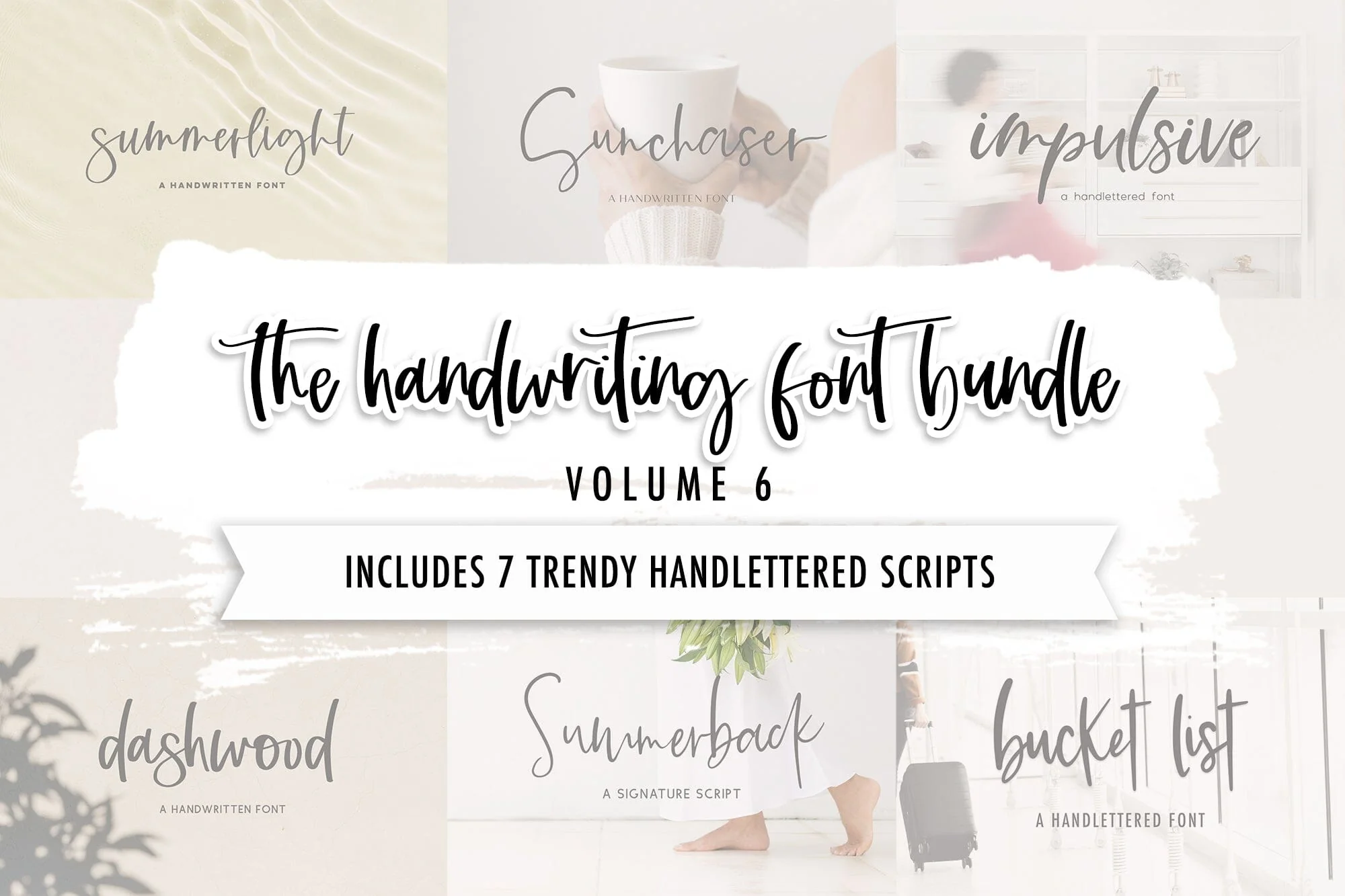
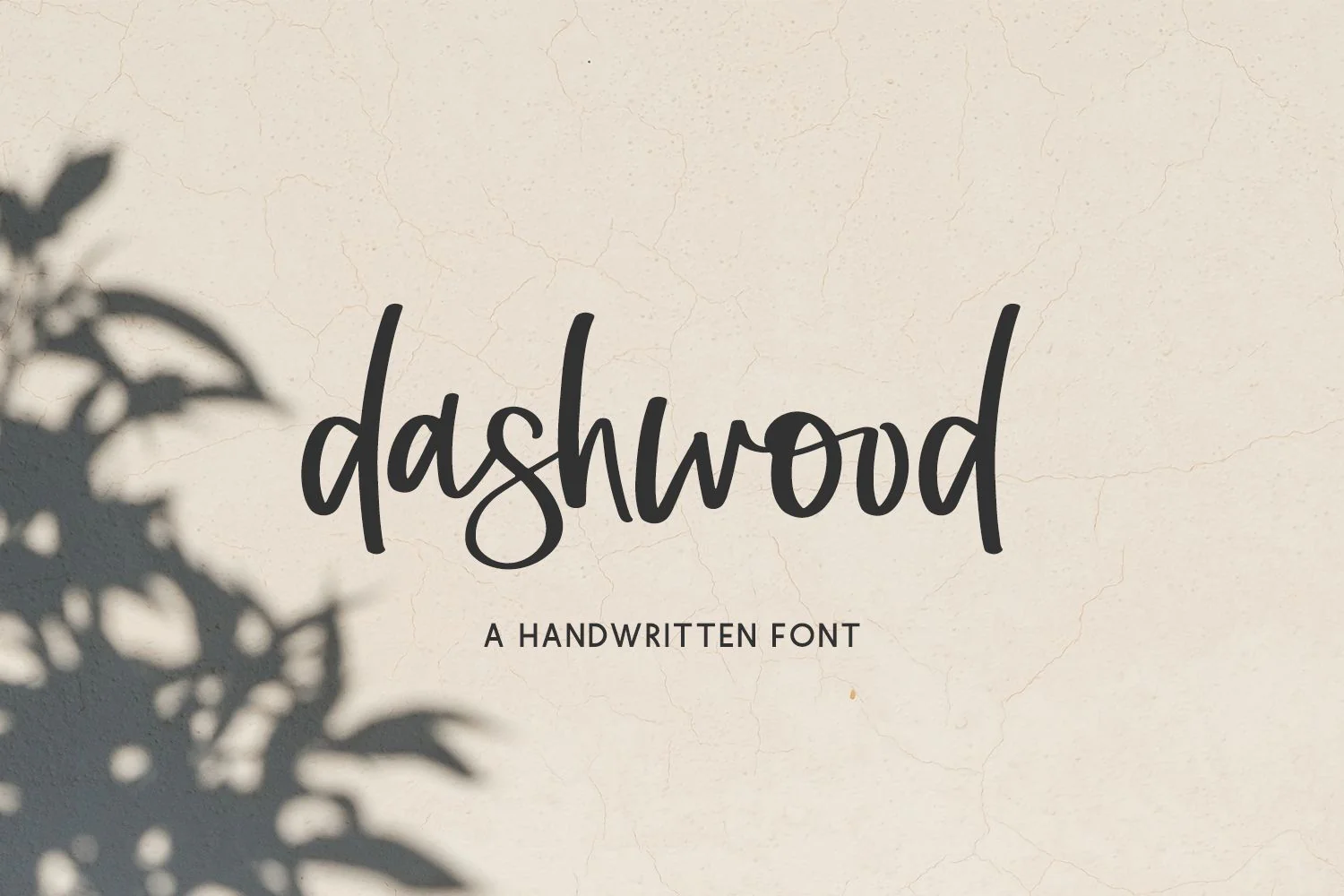
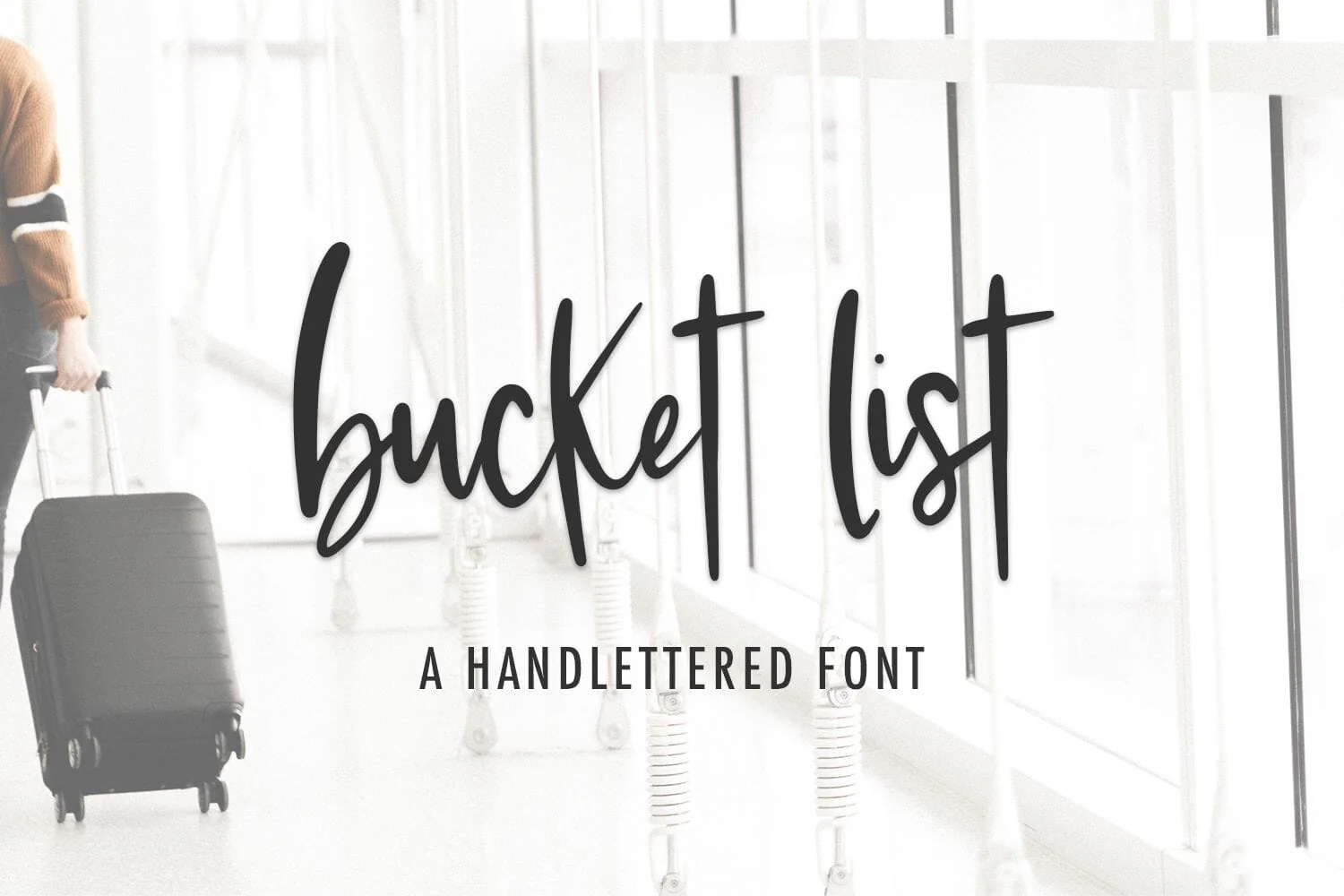
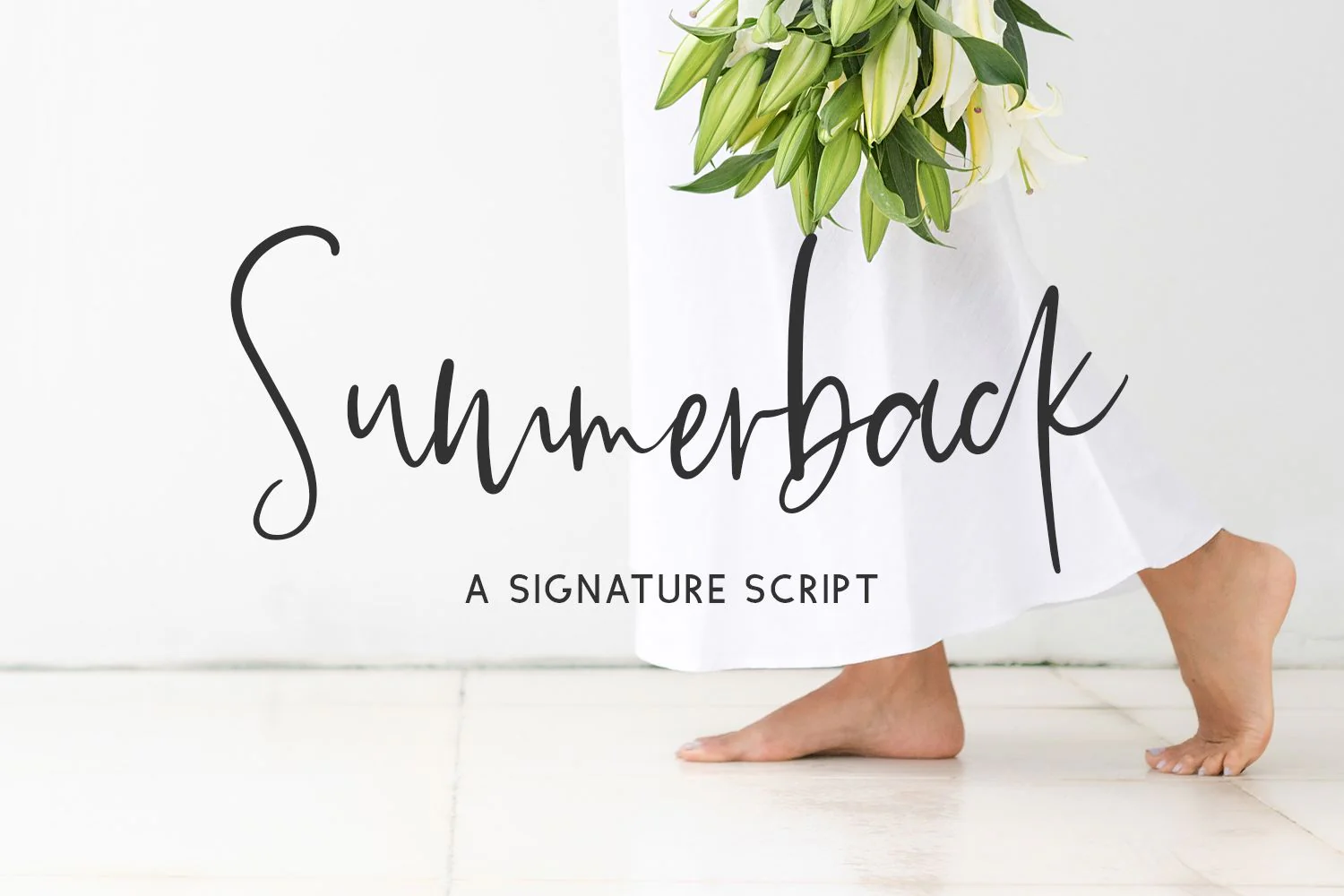
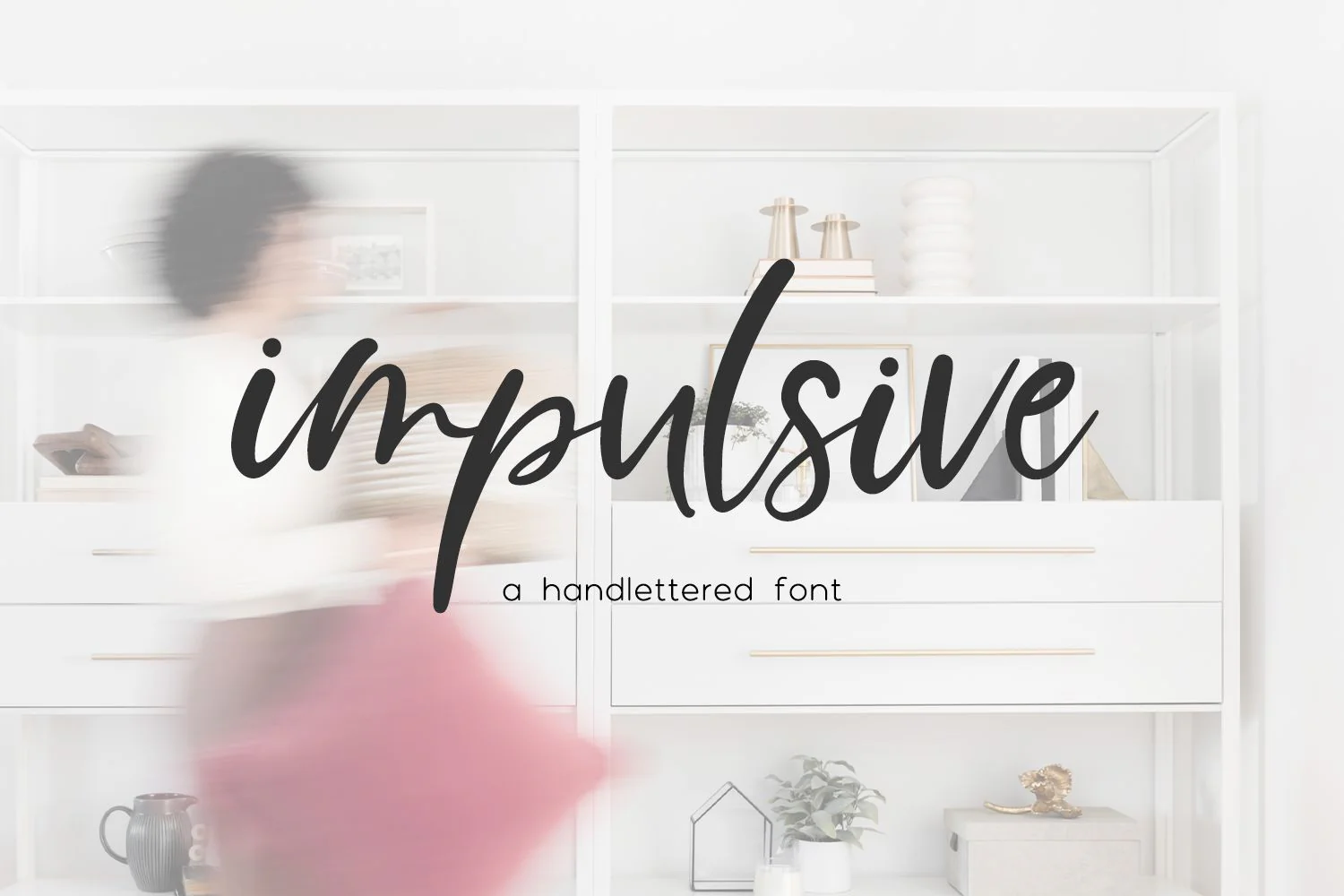
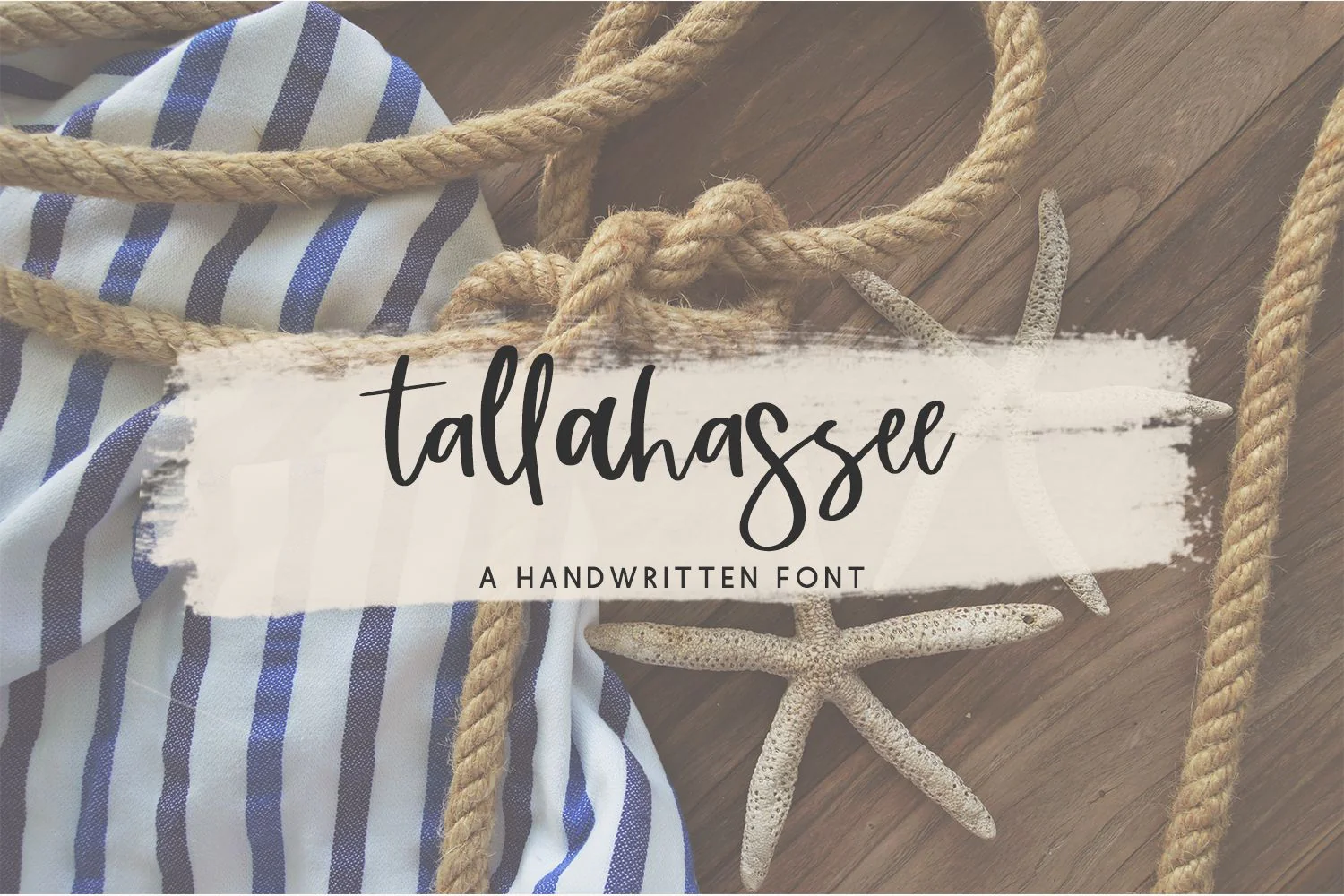
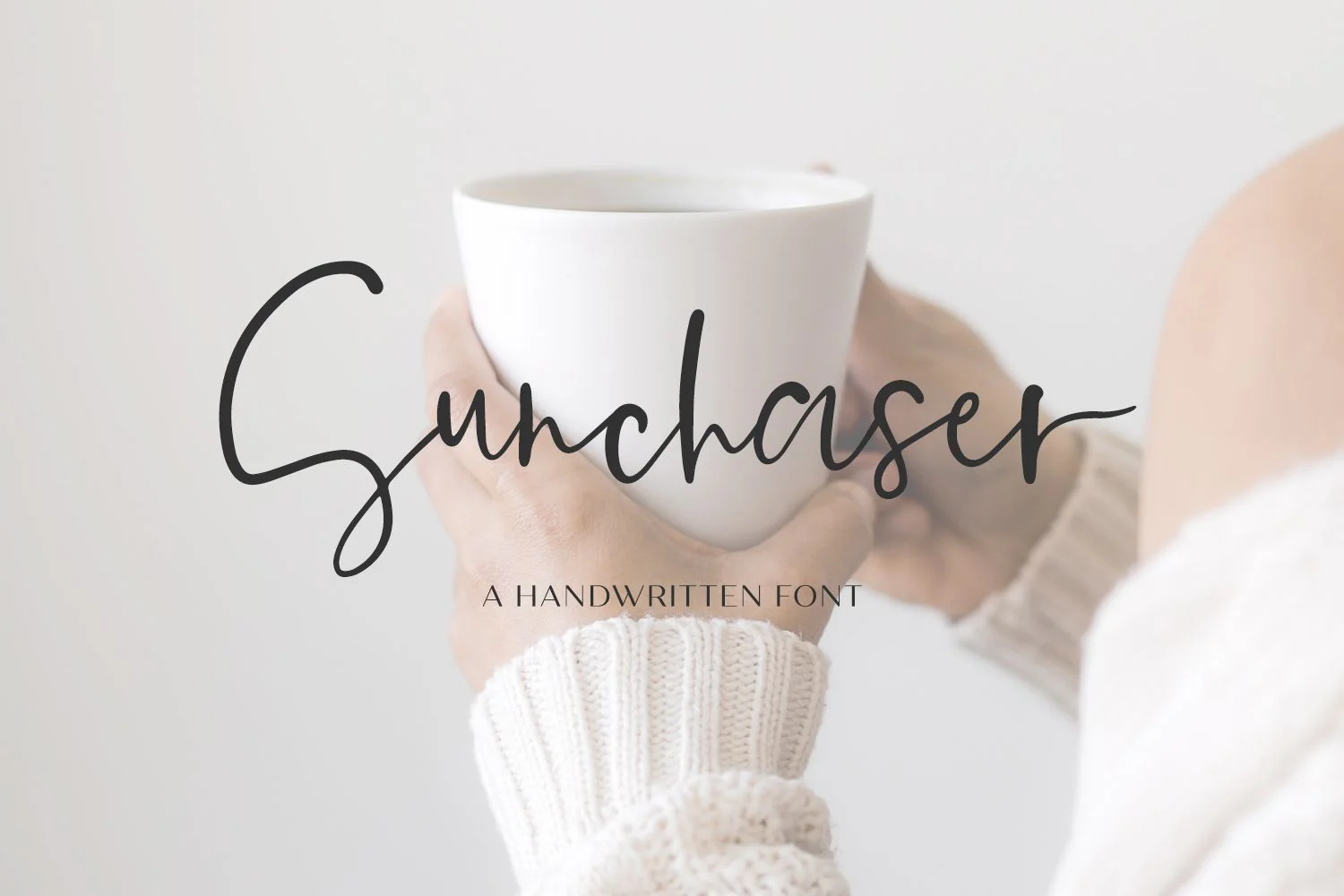
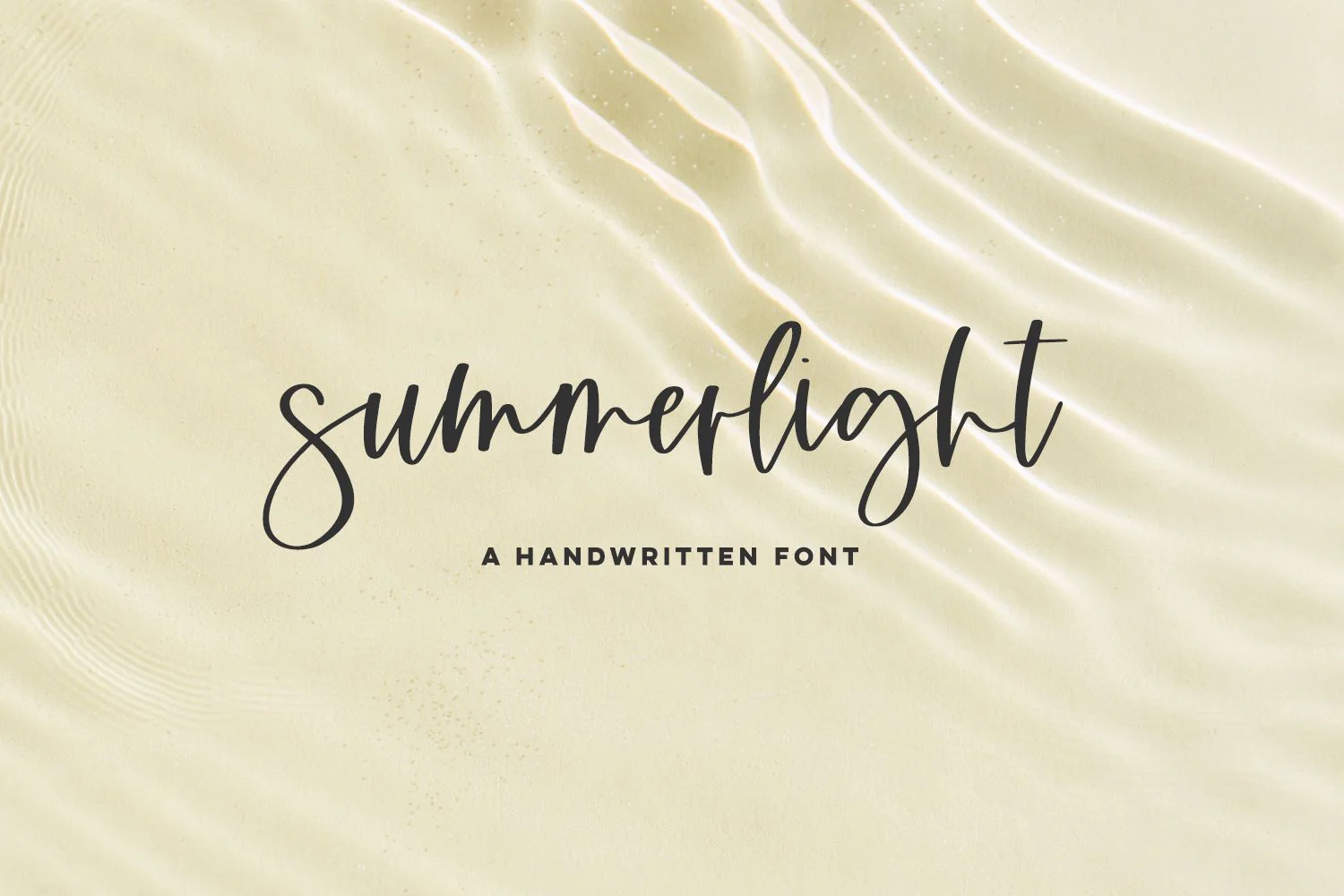
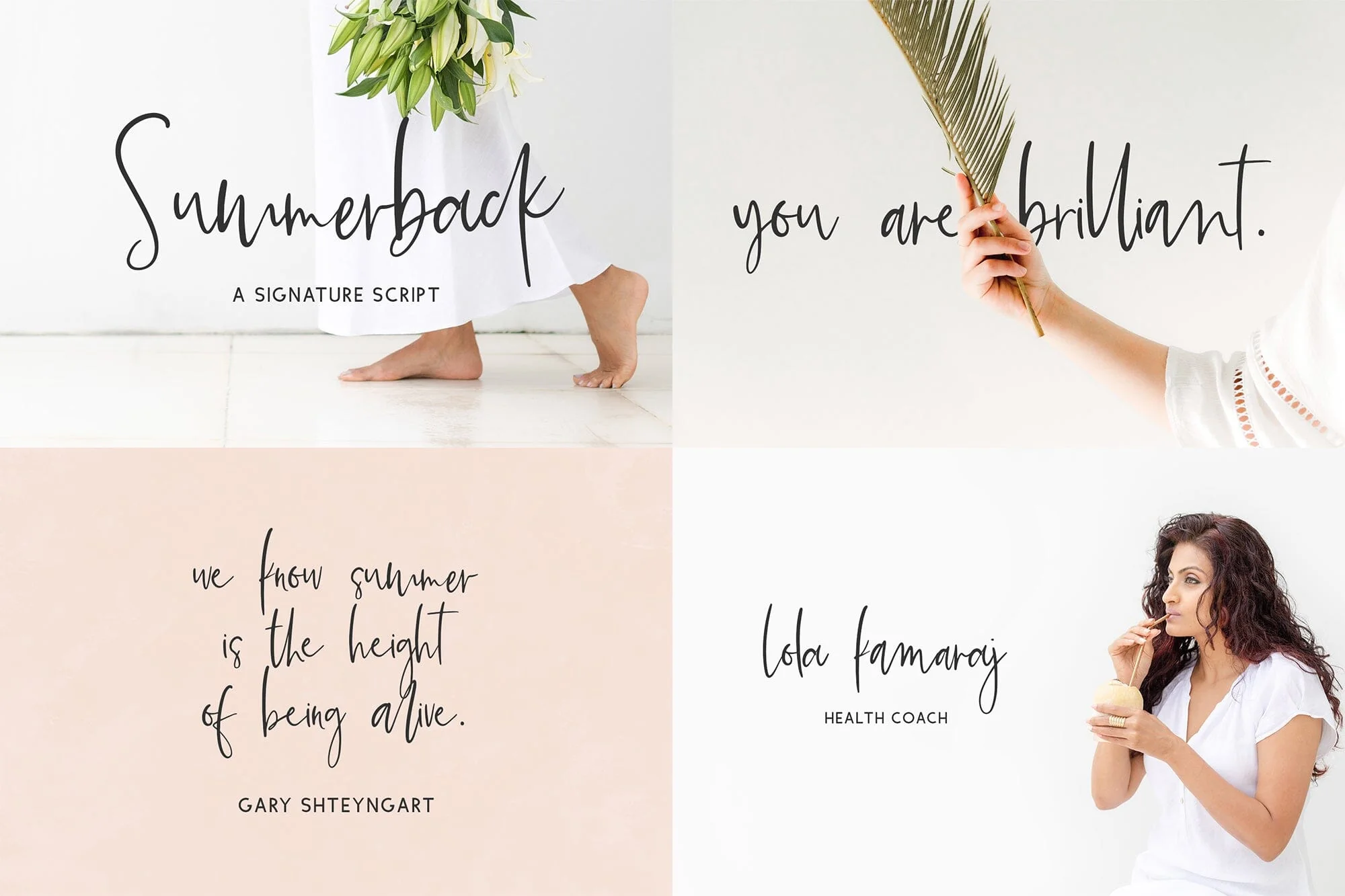
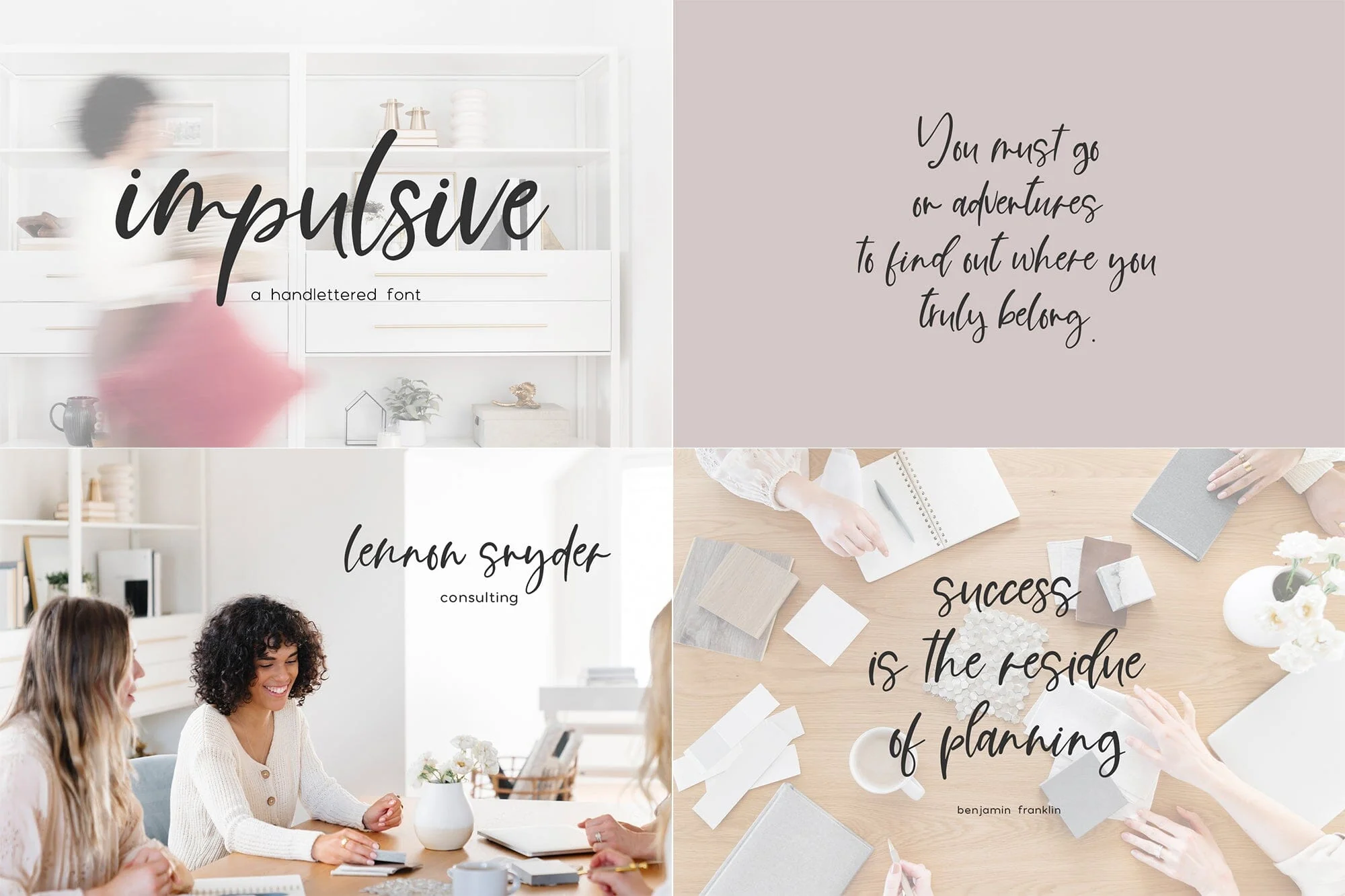
The Handwriting Font Bundle, Volume 6
This font bundle is a unique set of handwritten fonts for a variety of applications! This bundle includes seven fonts, featuring a contemporary signature style, giving your logo & branding, website, and other projects the perfect handwritten look & feel. You can even use these fonts for crafting with your Cricut or Silhouette machine to make trendy designs.
This bundle includes:āØ- Bucket List Script
- Dashwood Script (includes 13 ligatures)
- Impulsive Script (includes 35 alternates, 4 ligatures)
- Summerback Script (includes 26 alternates, 34 ligatures)
- Summerlight Script (includes 7 ligatures)
- Sunchaser Script (includes 26 alternates)
- Tallahassee Script (includes 26 alternates, 14 ligatures)